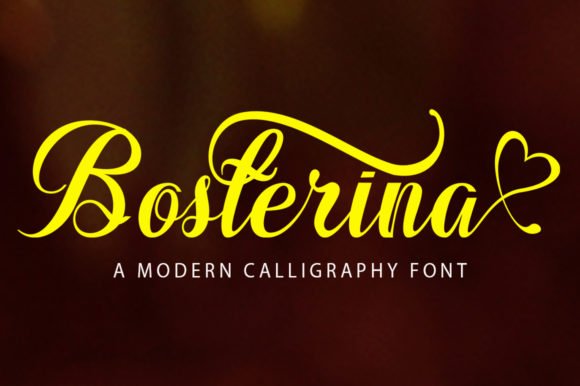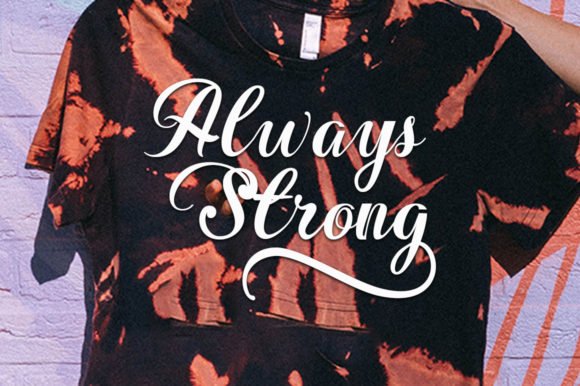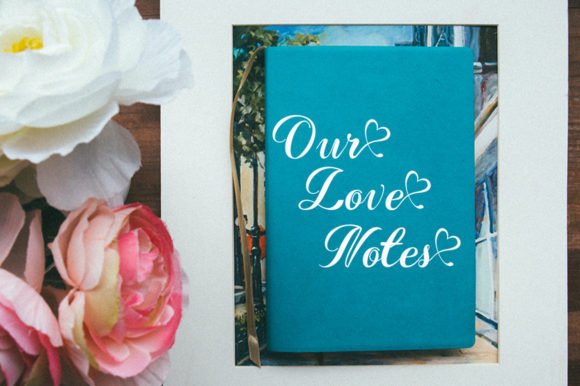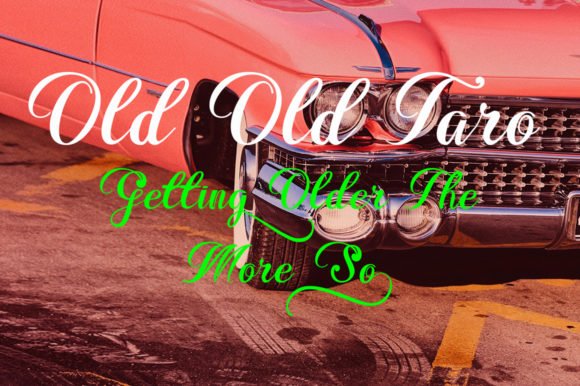
Calligraphy Fonts / FontsLatest Bosterina Font 23/04/2025 - by Awais Farooq Bosterina Font is a romantic and sweet calligraphy typeface with characters that dance along the baseline. This font is PUA encoded which means you can access all of the glyphs and swashes with ease! Related Posts:The Sweet Valentine FontPaper Tube Mockup Set Download Spooky Halloween Clipart Spooky PNG DownloadThe Funny Christmas Animal Christmas PNG The Best Vagentha Calligraphy FontI Put the Boo in Boujee,Girly Halloween Sunday Eighties Font DownloadThe Trending Love Bubble FontThe Top Calligraphy FontBest Sparky Dream - Curly Stylish Serif The Top Calligraphy FontChoret Fudyng Bubble Typeface Download Papillon Font This is Gistale Font This is Samantha Font